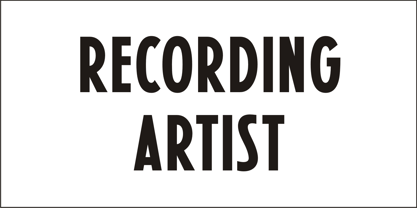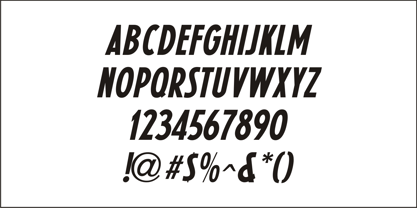
Recording Artist JNL Font
When 45 RPM records were the norm for a teenager’s music collection in the 1950s and 1960s, many discs had their labels printed by letterpress. Some record companies utilized a bold, condensed typeface set in all caps for the song’s title and other pertinent information. The digital version of this font is called Recording Artist JNL, and is available in both regular and oblique versions. A companion font loosely based on this type design [but with more original characters and a slightly lighter weight] is Promotional Copy JNL.